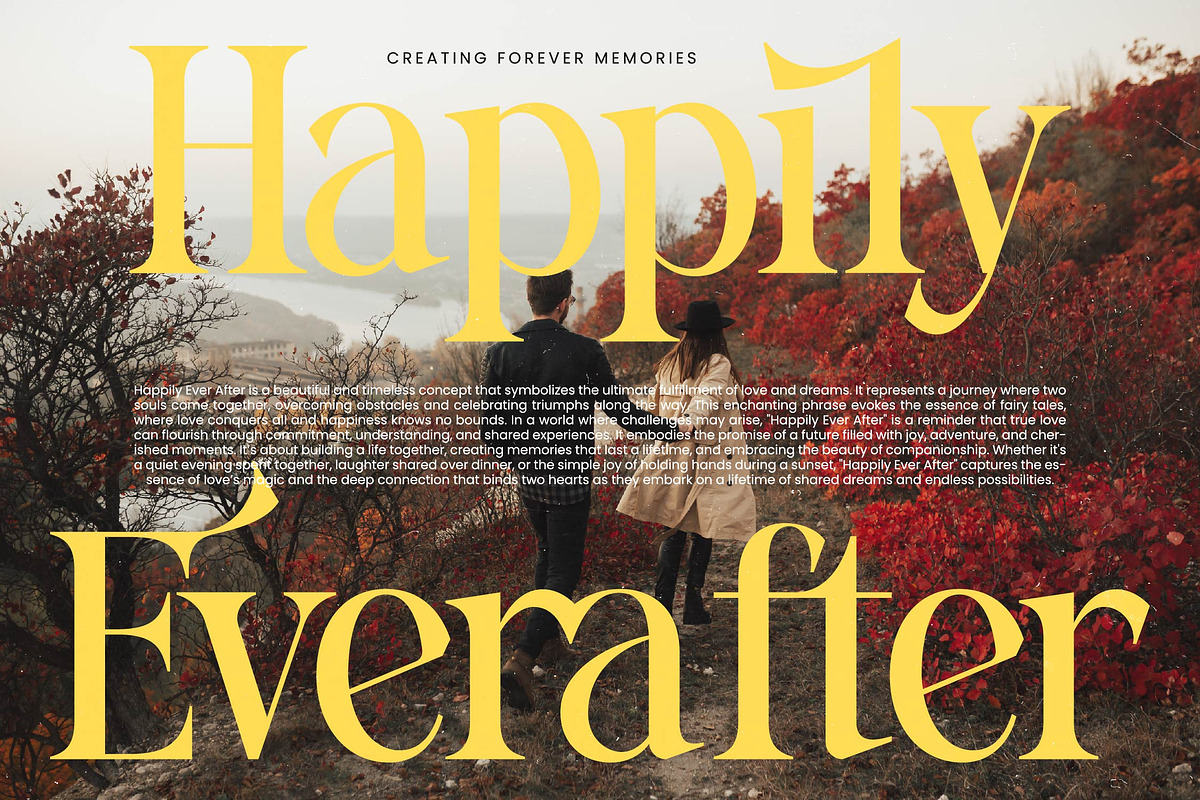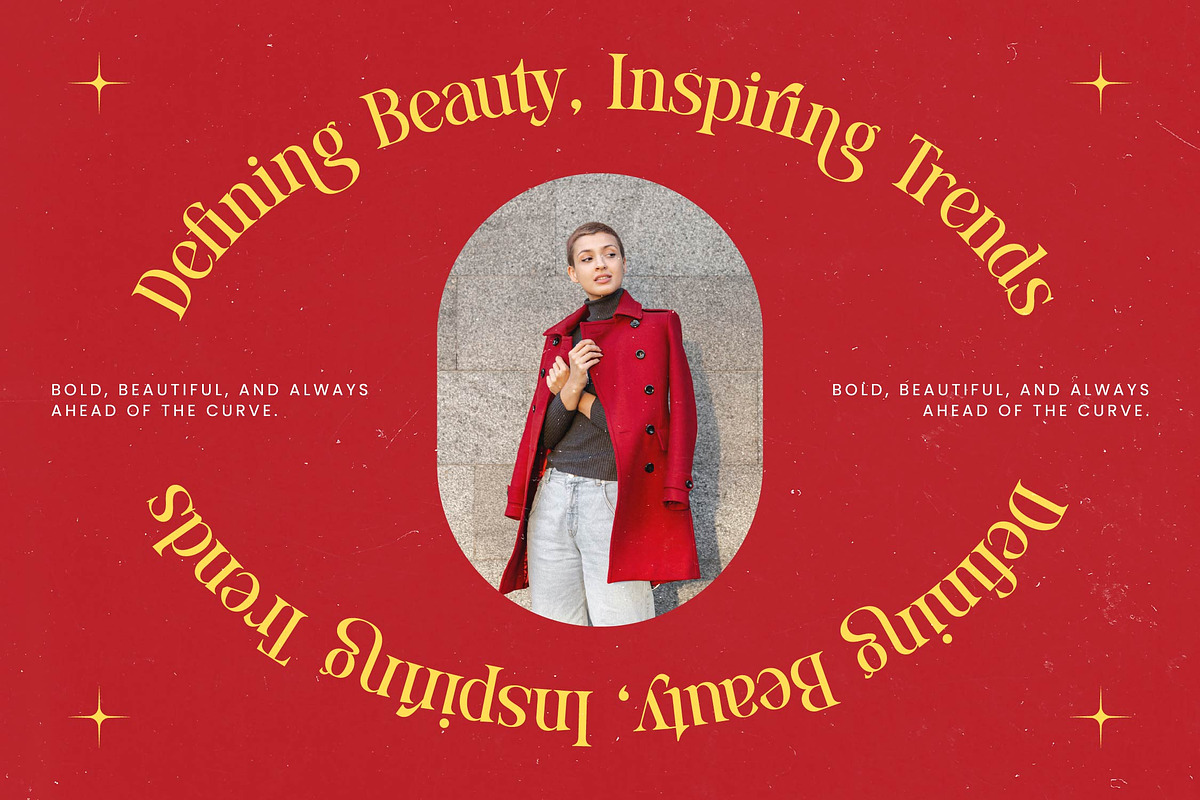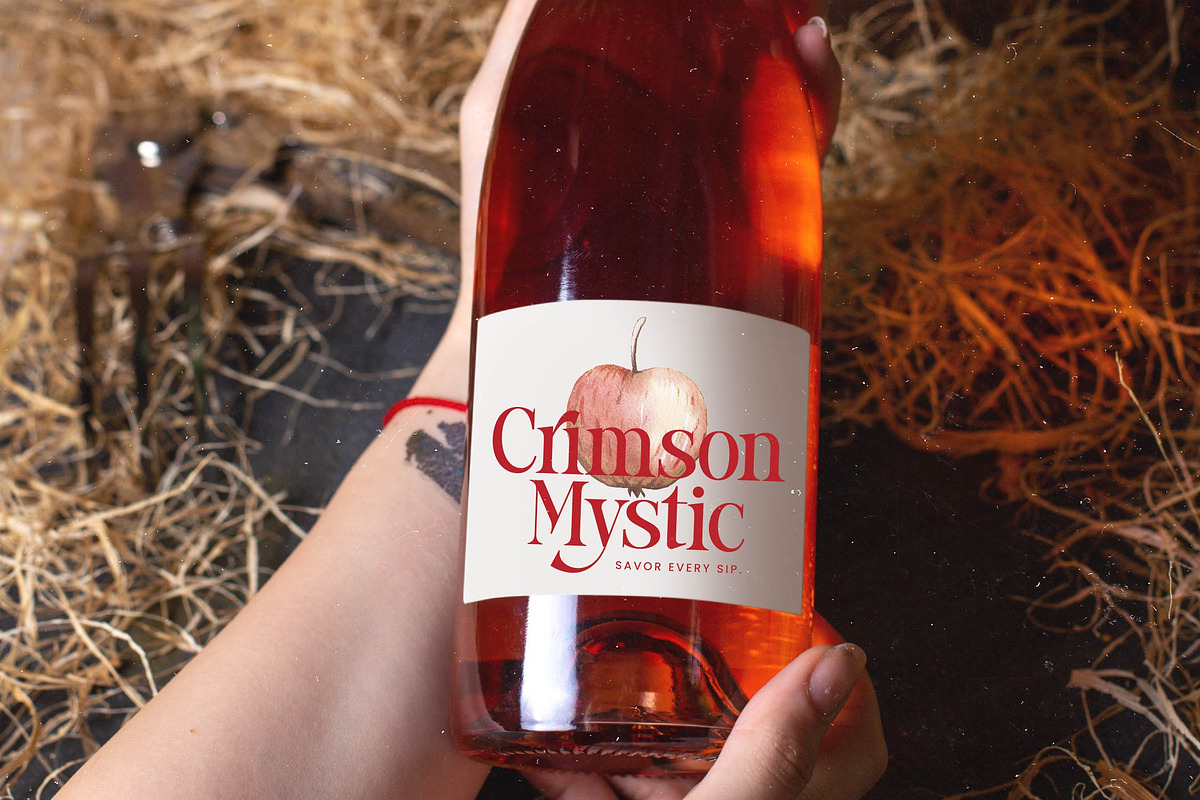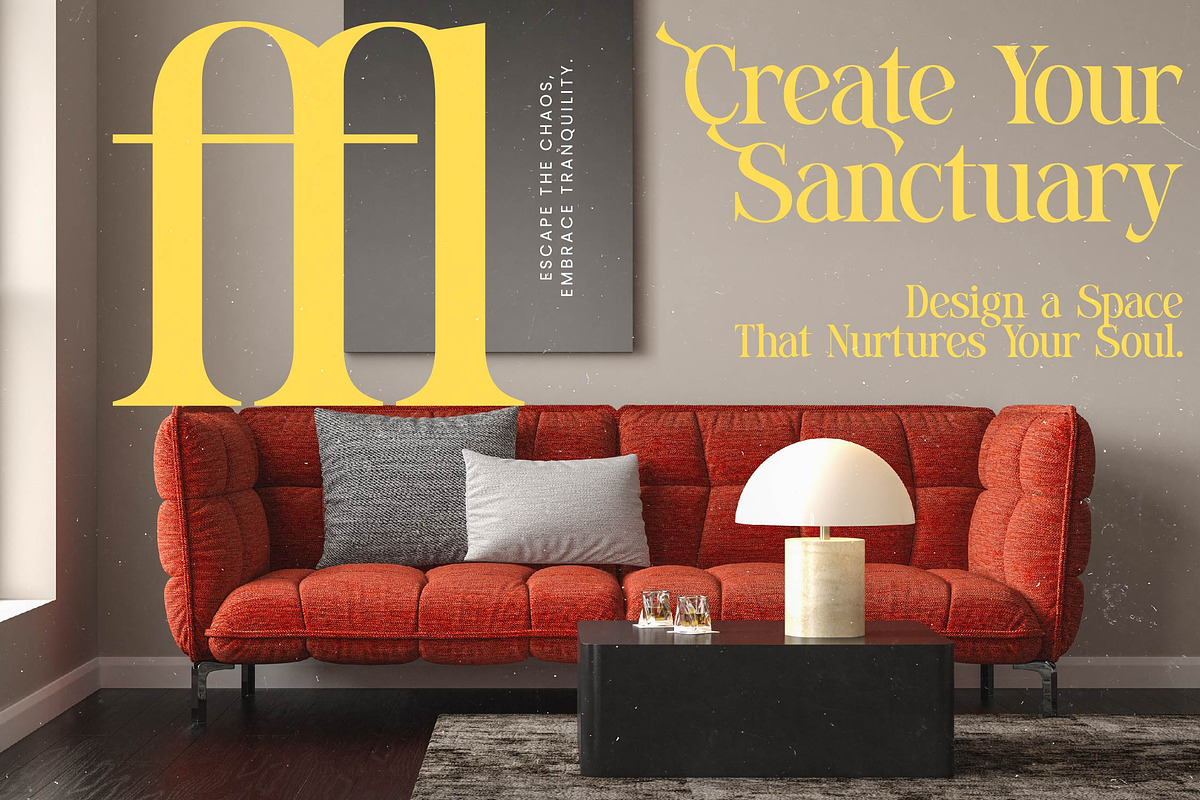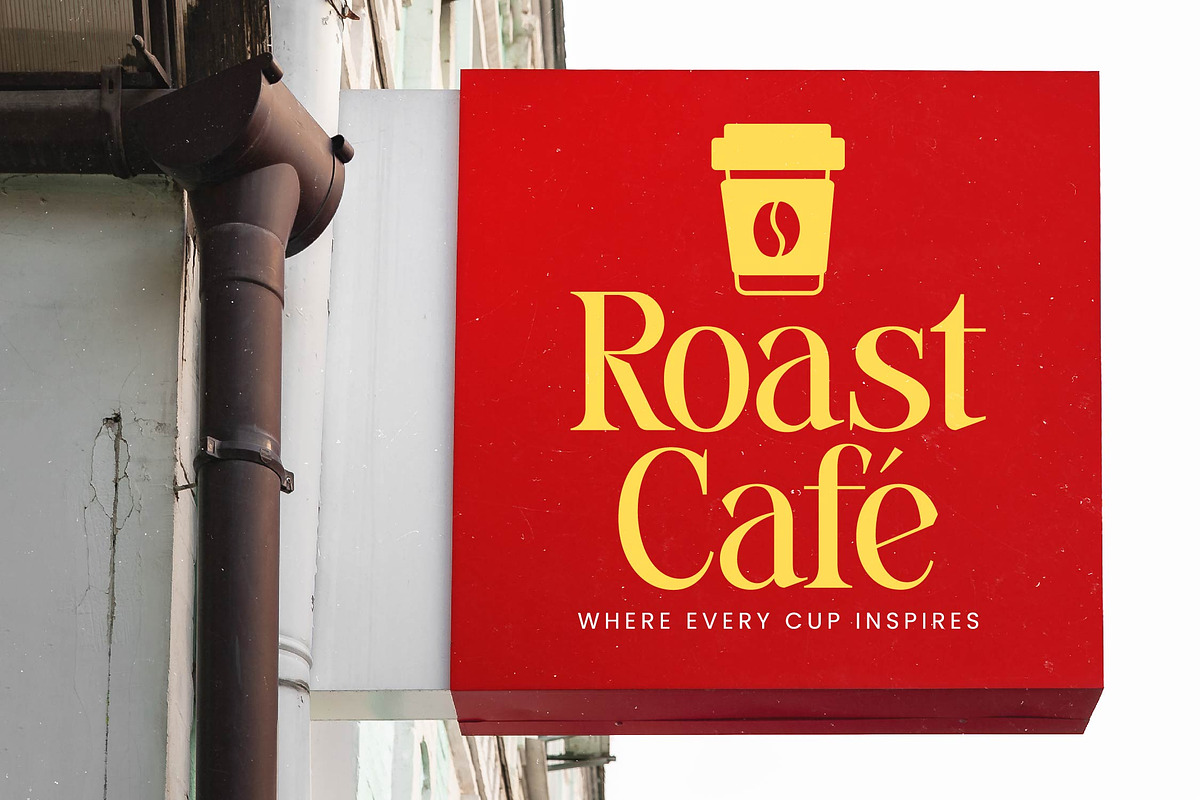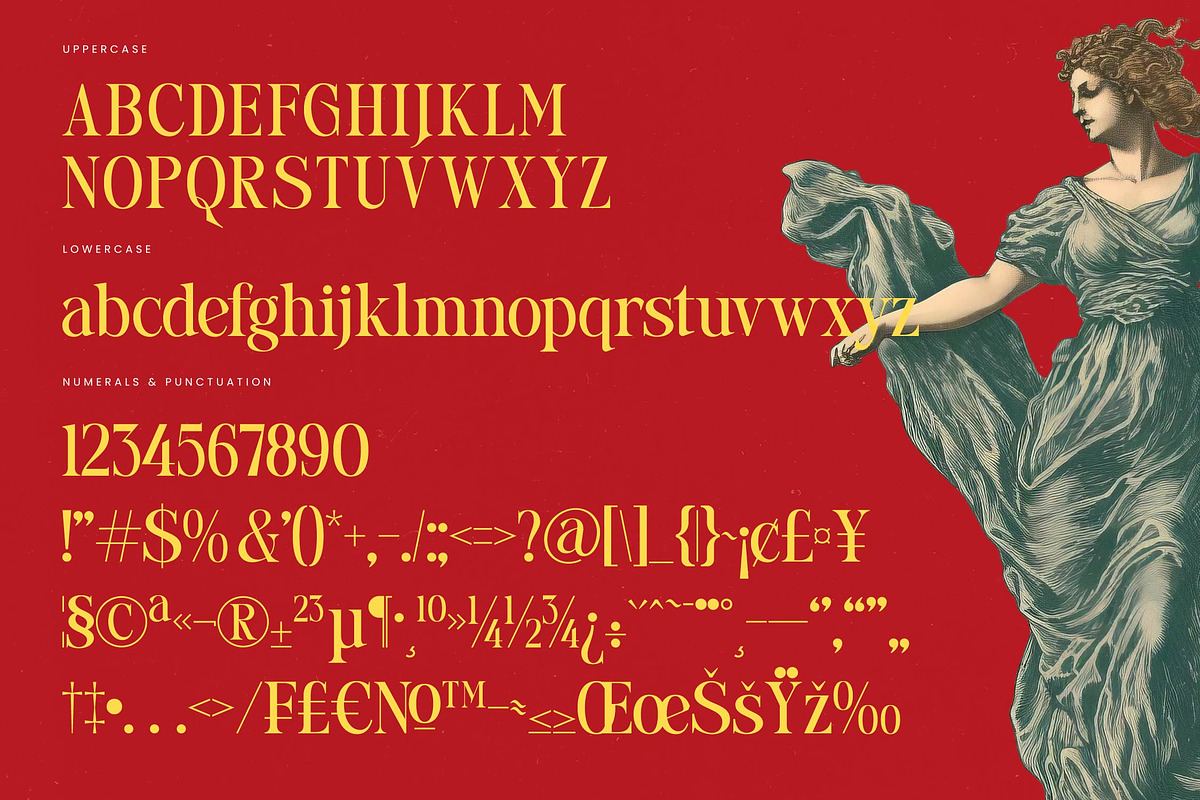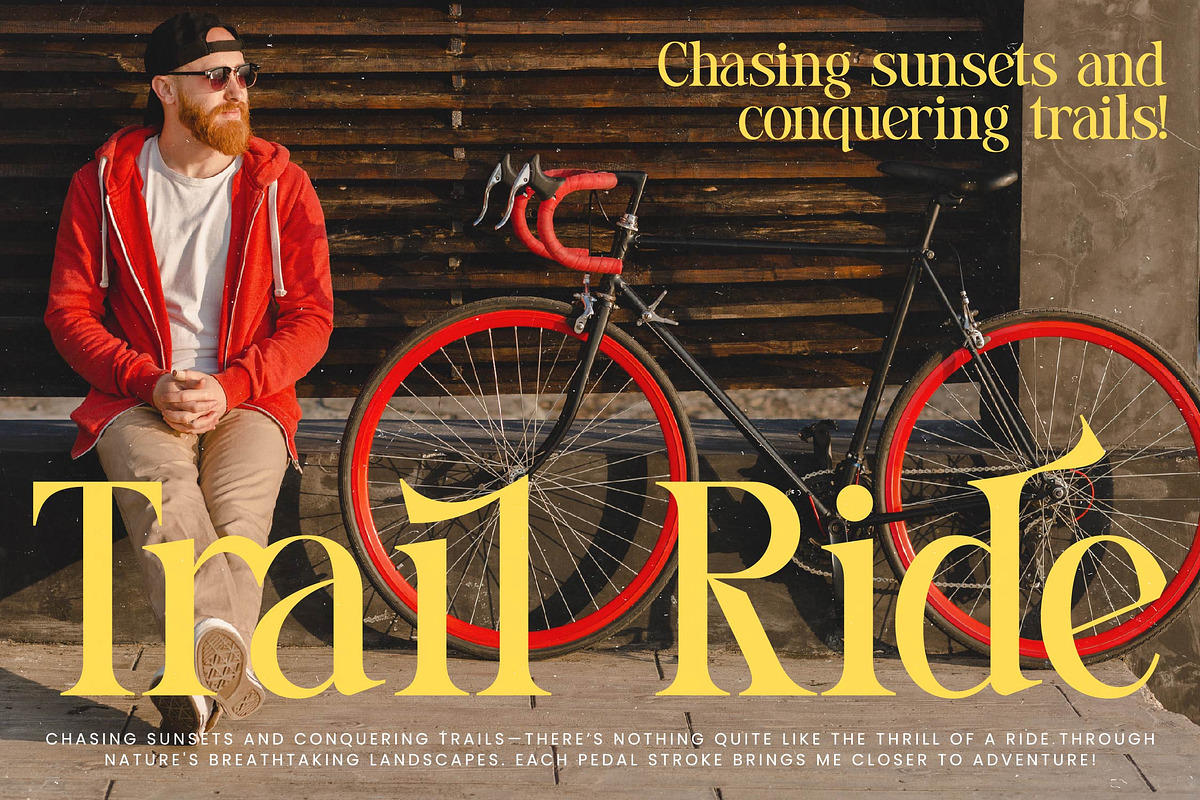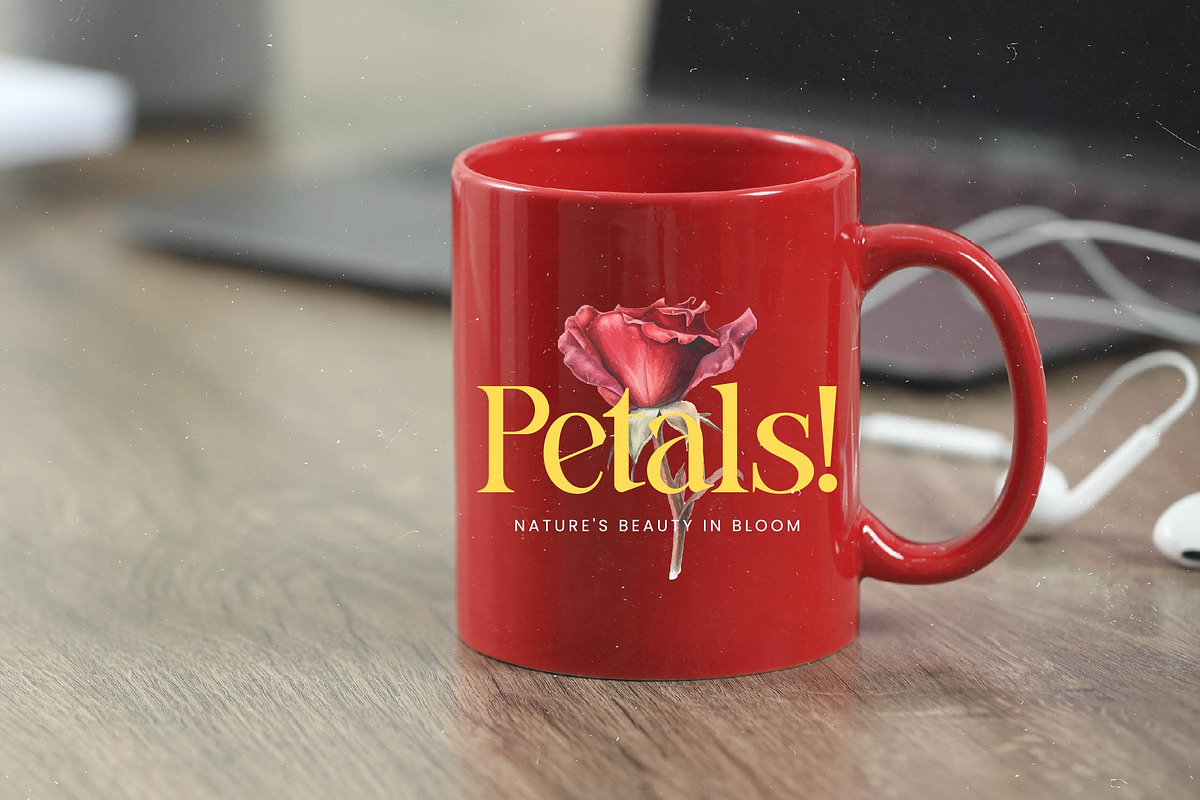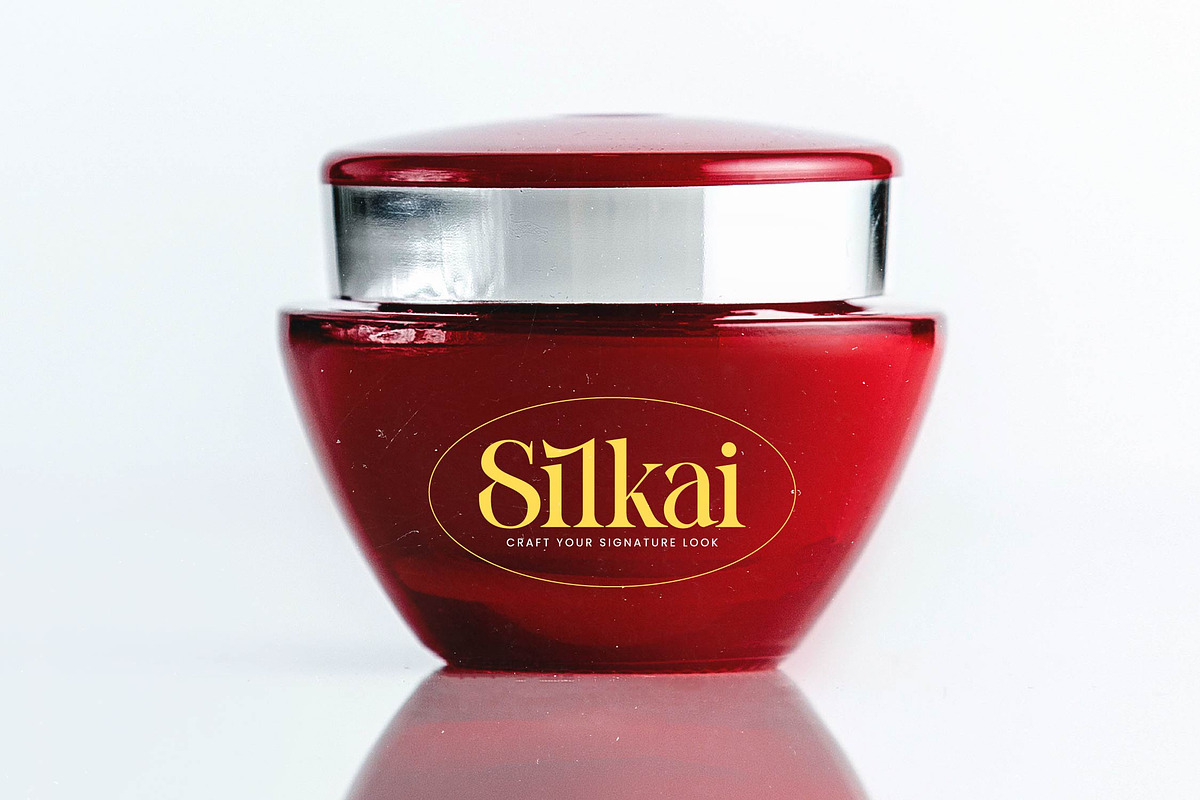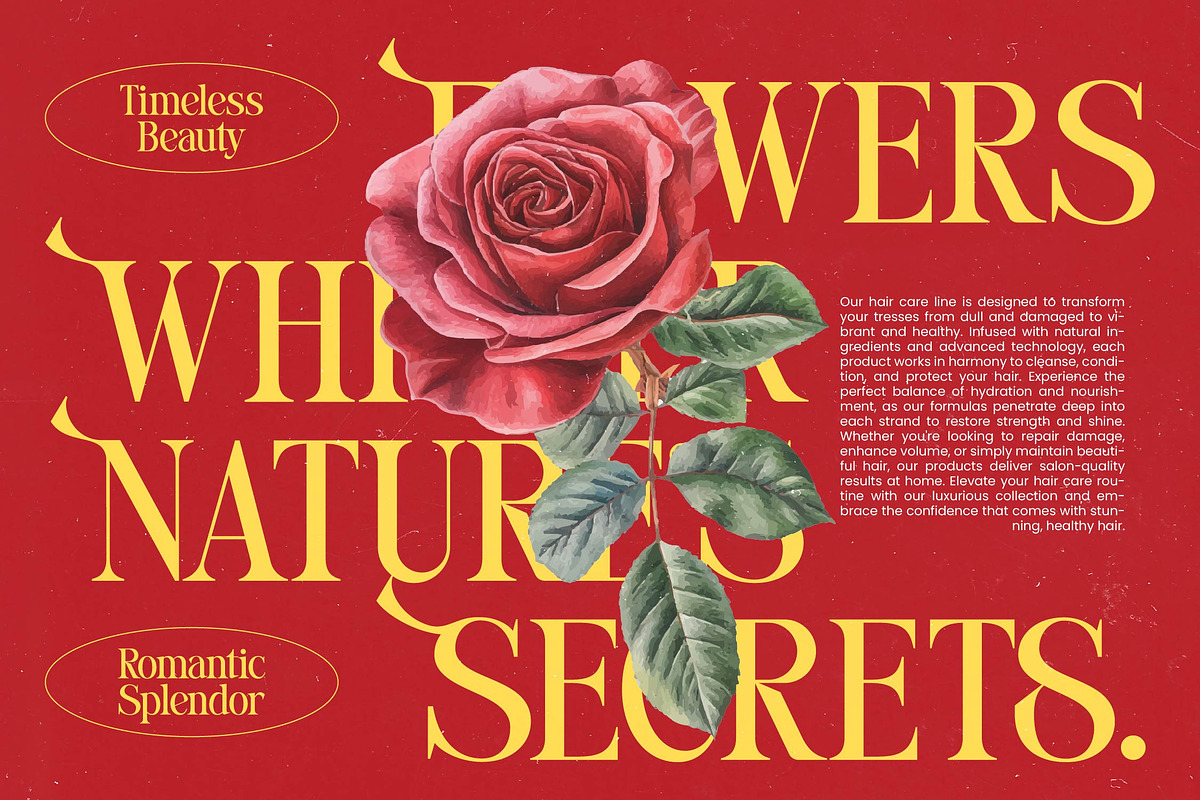
Stories Grand Modern Display Serif
Stories Grand captures the timeless essence of classical beauty, blending it seamlessly into a contemporary design narrative that commands immediate attention. It is a typeface designed for those who want their words to feel like a masterpiece of visual storytelling.
Drawing inspiration from the grandeur of classical statues and the refined aesthetics of high-end vintage publishing, this font evokes a sense of historical weight paired with modern grace. The tall, slender forms create a rhythmic elegance that feels both regal and avant-garde.
This modern serif display offers an unparalleled luxury typography experience, utilizing its high-contrast serif strokes to deliver maximum branding impact. It stands as a premier editorial font choice for designers looking to elevate their projects with a touch of sophisticated drama and polished refinement.
Tapping into the current modern serif trend, this typeface fulfills the growing demand for editorial display fonts that prioritize personality. Its character-driven typography allows it to bridge the gap between nostalgic charm and future-forward design, making it an essential tool for the modern creative.
Perfectly suited for high-impact logo design and comprehensive corporate branding, this font also shines in high-fashion editorial layouts and luxury packaging. Its romantic yet bold nature makes it an ideal selection for premium wedding stationery and exclusive fashion brand identity.
The package is packed with creative flexibility including 21 unique ligatures and 72 stylized alternates to customize every word, alongside decorative swashes. It features full multilingual support and a wide array of international characters, ensuring your message reaches a global audience with consistent style and grace.
- Ligature 21 Alternate 72